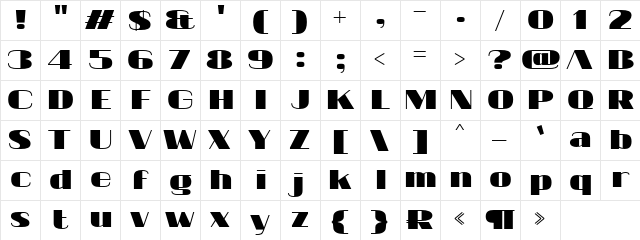
20 db Regular
| Foundry | Jovanny Lemonad |
| Designer | Jovanny Lemonad |
Design Context for 20 db Typeface
20 db is a composed and adaptable typeface that performs quietly and consistently across a wide range of design contexts.